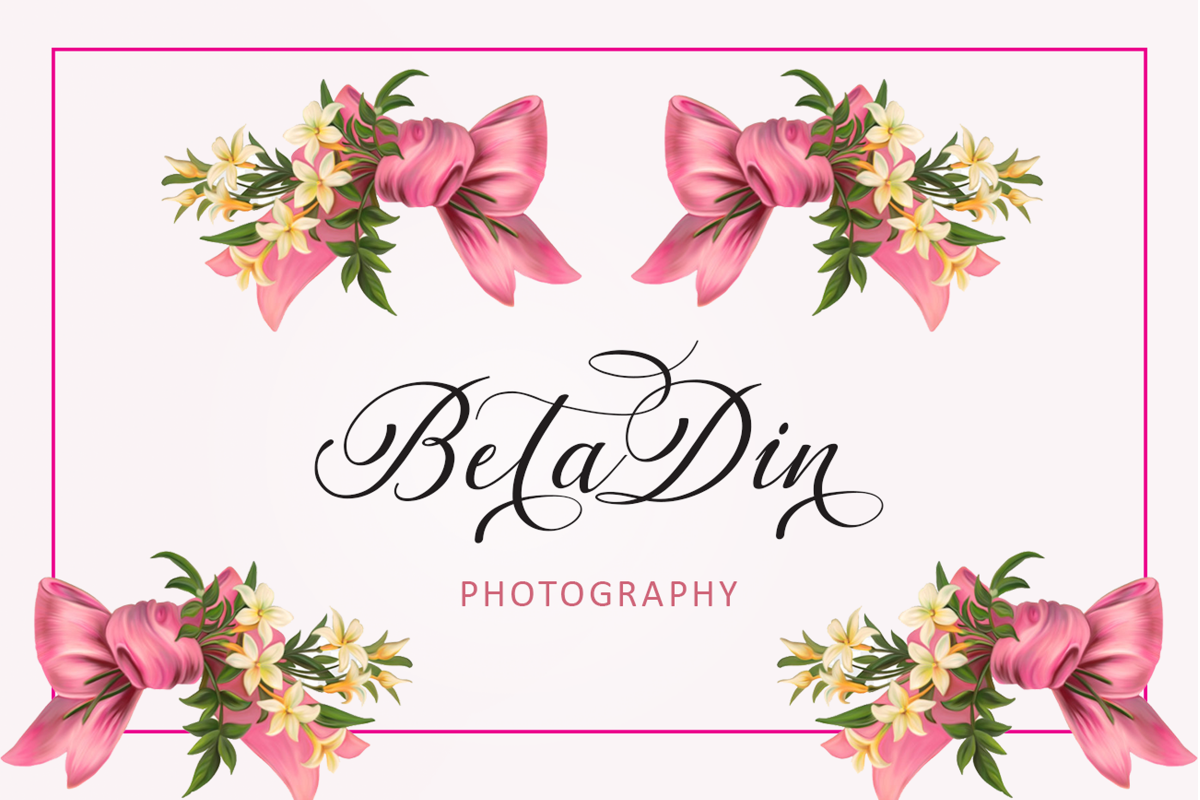
Auttan Script Calligraphy Font
Auttan
Auttan Italic
Auttan Script
Auttan Script is handwritten stylish copperplate calligraphy fonts, combines from copperplate to contemporary typeface with a dancing baseline, classic and elegant touch. Can be used for various purposes.such as headings, signature, logos, wedding invitation, t-shirt, letterhead, signage, lable, news, posters, badges etc.